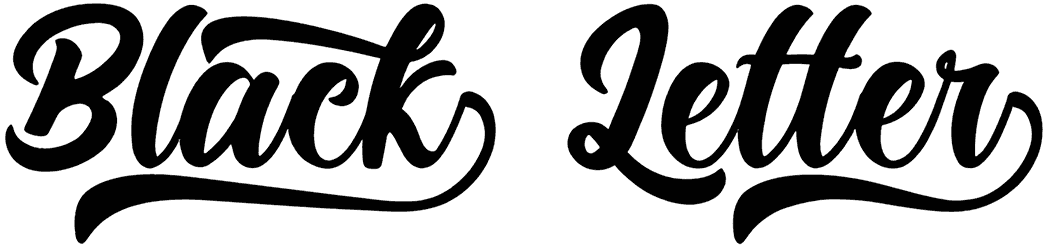
Black Letter Font
Black Letter is a beautiful old-school script font that can be used to give your digital projects a more modern feel. Use this baseball font to draw attention to your upcoming design projects.